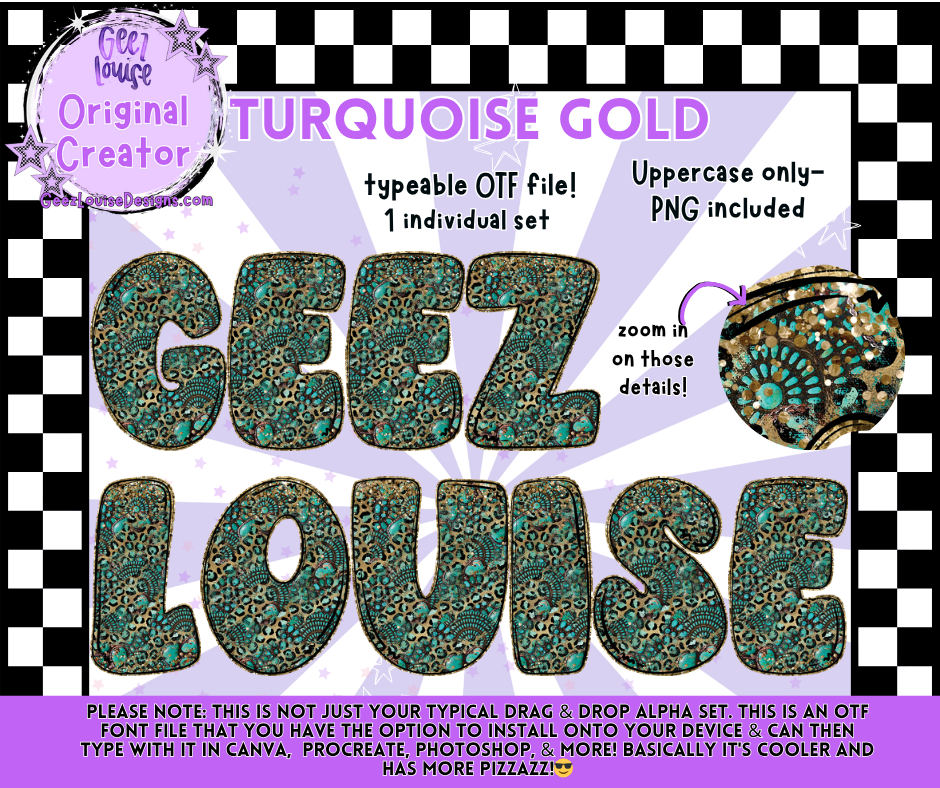
Turquoise Gold Typeable OTF Font + PNG Set
Add a luxurious southwestern touch to your designs with the Turquoise Gold Typeable OTF Font! 🏜️💛
This detailed typeable OTF file features a stunning mix of turquoise stones and gold accents, giving every letter a bold, boho-chic vibe. Install it directly on your device and start typing in Canva, Procreate, Photoshop, and more! Each uppercase letter is packed with texture, shimmer, and handcrafted style — perfect for designs that need a little extra sparkle and soul.
Perfect for:
• Western and boho-inspired designs
• Boutique branding and signage
• Southwestern-themed graphics
• Tees, stickers, and digital projects